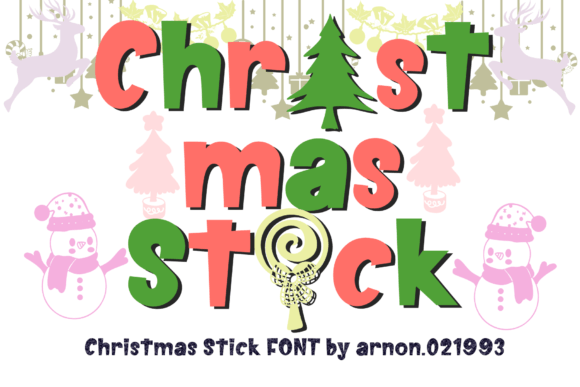
Introducing Christmas Stick Font: A Whimsical Journey into the World of Fun and Creativity!
Embark on an enchanting adventure with Christmas Stick Font, a display font that sparks imagination and brings a touch of magic to your designs. Designed with a captivating cartoon style, this font is a perfect fit for children's projects, adding a playful and whimsical charm to any creation.
With its bold, modern, and unique appearance, Christmas Stick Font stands out from the ordinary, making your designs shine with personality. It's the perfect choice for projects aimed at kids, boys, kindergarteners, birthday celebrations, and comic creations.
Picture this: a vibrant poster for a children's play, adorned with the Christmas Stick Font, invites young audiences into a world of wonder and excitement. Or, imagine a playful invitation for a birthday party, featuring the font's whimsical characters, promising an unforgettable celebration.
The magic of Christmas Stick Font extends beyond its visual appeal. It's a font that evokes emotions, creating a sense of joy, wonder, and nostalgia. It speaks to the child within us all, reminding us of simpler times filled with laughter and imagination.
Whether you're a graphic designer, a teacher, a parent, or simply a creative soul, Christmas Stick Font is the perfect addition to your design arsenal. Its versatility knows no bounds, allowing you to create captivating logos, eye-catching social media posts, vibrant posters, and personalized greeting cards that leave a lasting impression.
So, let your imagination soar and dive into the world of Christmas Stick Font. Discover the endless possibilities that await you as you bring your creative visions to life with this enchanting font. Unleash the magic within and create designs that captivate, inspire, and ignite the imagination of children and adults alike.